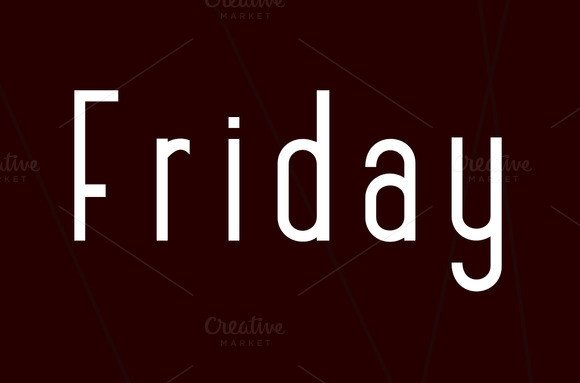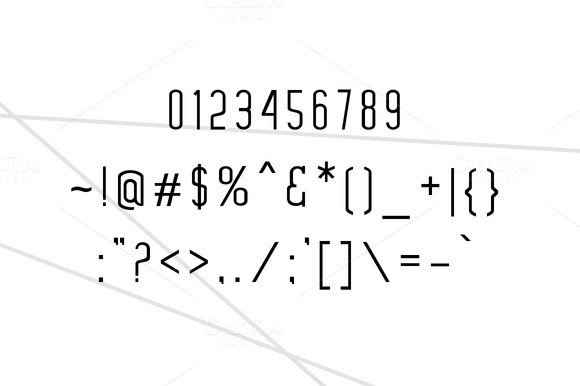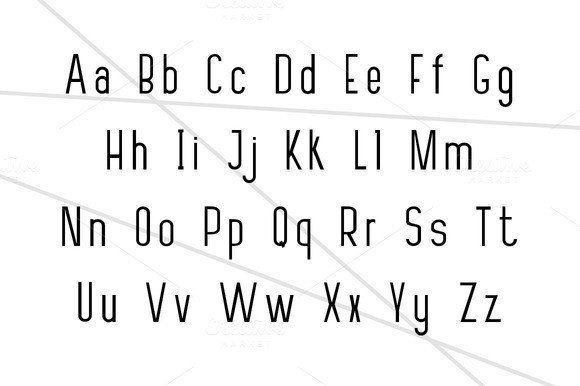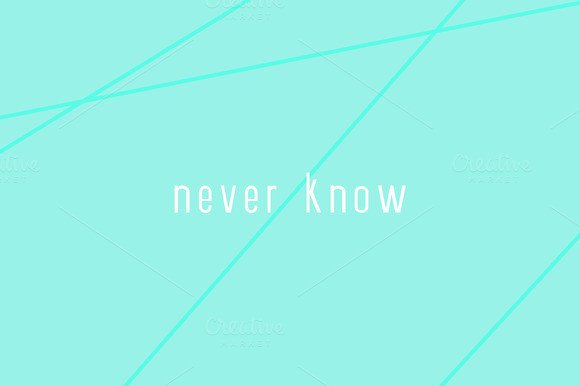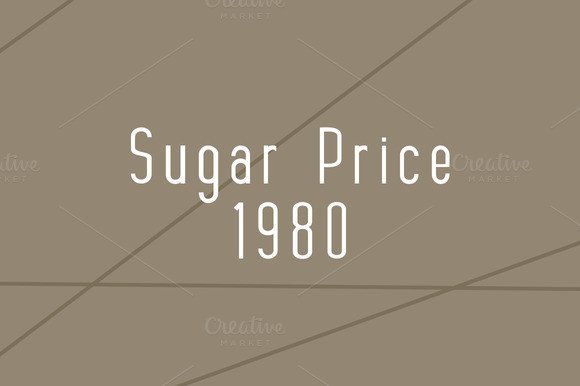
Introduction to Rahmah Font
Remember the rush of excitement when you finally find the perfect font for your next creative project? It’s like stumbling upon a hidden treasure, elevating your design from good to great. For designers, the quest for the ideal font can be a lifelong journey, but sometimes, it’s the simplest discoveries that make the biggest impact. Enter the Rahmah Font, a beautiful squared, condensed sans serif font that’s about to become your new best friend.
Whether you’re working on a photographic editorial or a print design, Rahmah Font is the perfect addition to your design resource toolkit. With its clean lines and modern aesthetic, it’s guaranteed to give your projects a high-quality feel that will leave a lasting impression. The best part? It’s available for free download, making it an accessible design resource for designers of all levels.
Key Features of Rahmah Font
- Unique characteristics include a modern and elegant design, making it perfect for creative projects that require a sophisticated look.
- Perfect for use in various design contexts, including digital and print media, due to its high-quality and versatile design.
Honest Review: Rahmah Font
As a designer, I’m always on the lookout for high-quality design resources to elevate my creative projects. Recently, I stumbled upon the Rahmah Font, and I must say it’s been a great addition to my design arsenal.
- The Rahmah Font offers a transparent background, making it perfect for overlaying on images or videos.
- The font is highly customizable, with a range of styles and sizes available for free download.
- The design is clean and modern, making it suitable for a variety of creative projects, from brochures to social media graphics.
Overall, I’m impressed with the Rahmah Font. It’s a great design resource for those looking for a high-quality, modern font for their creative projects. While it may have some limitations, I think it’s definitely worth checking out.
Rahmah Font
The Rahmah Font is ideal for various design projects, including brochures, flyers, business cards, and social media graphics. Its transparent background makes it perfect for creating eye-catching visuals.
Tips for Getting the Most Out of Rahmah Font
To get the most out of the Rahmah Font, use it in combination with other design elements, such as images, graphics, and shapes. Experiment with different font sizes, colors, and styles to create a unique and engaging design.
Alternatives to Rahmah Font
Compared to Rahmah Font, Ostrich Sans has a more minimalist design, making it ideal for projects where transparency and simplicity are key. Its free download option also makes it an attractive alternative for designers on a budget.
Playfair Display is a luxurious, high-quality font ideal for designers working on high-end creative projects. It features elegant lines and a classic design, making it perfect for use in advertising, magazines, and other print materials. When to use: Designing luxury brands, creating high-end advertising campaigns, or producing high-quality print materials.